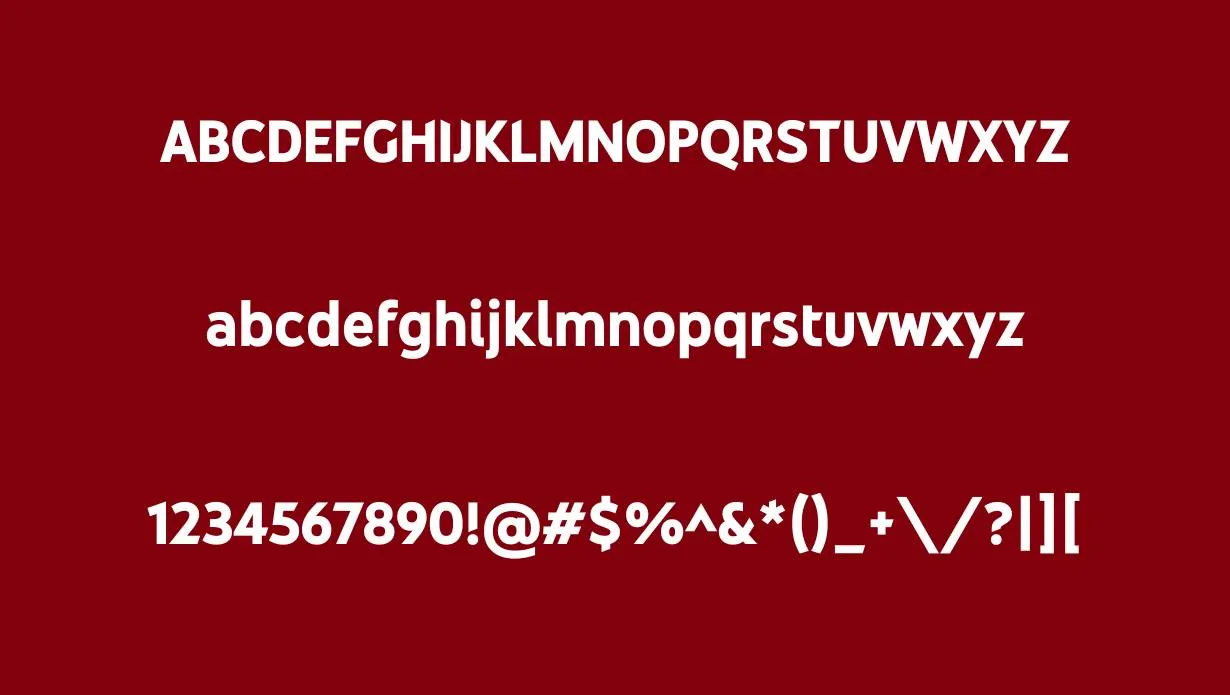
YouTube Sans Font is a clean and modern typeface designed for digital interfaces. With its neutral aesthetic and well-defined letters, this font is suitable for various online applications, including websites, apps, and social media. The moderate weight and medium width strike a balance between professionalism and readability, making it a reliable choice for projects in the digital realm.
The technical details emphasize its adaptability and clarity, ensuring a seamless and user-friendly experience. YouTube Sans Font’s design elements are crafted to facilitate easy readability on screens of different sizes, making it a practical and effective choice for digital platforms where clear communication is essential.